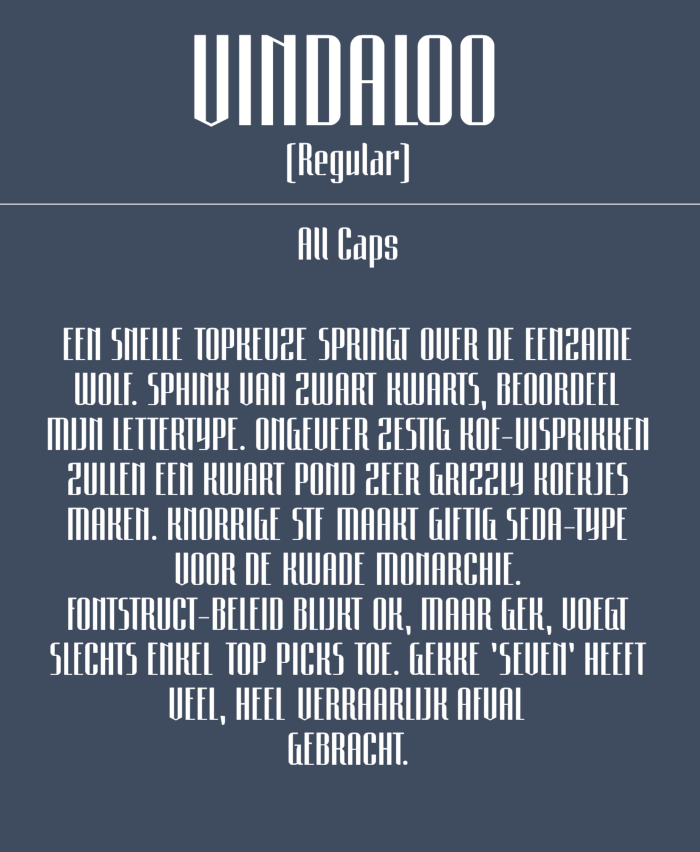
STF_VINDALOO (Regular) - Style variation in the 'VINDALOO' font family
This is the lightest version in this font family and is the most suitable style for more of a body text use.
Of all the versions this one proved to be the most challenging one to implement all the stylistic details the heavier versions also feature. And in the end I was unable to transfer each and every one of them into this version. But that seems to be far from any issue at all since this is aimed at smaller point size and best legibility. So I guess some slight extra simplicity wouldn't harm!
Another notable difference in this version is that some glyphs received more changes than just a 1:1 straight weight cut. This was done because either a straight weight cut would've made the character look awkward or due to technical difuculties.
Despite the above I think it came out just great, and absolutely a clearly recognizable family member.